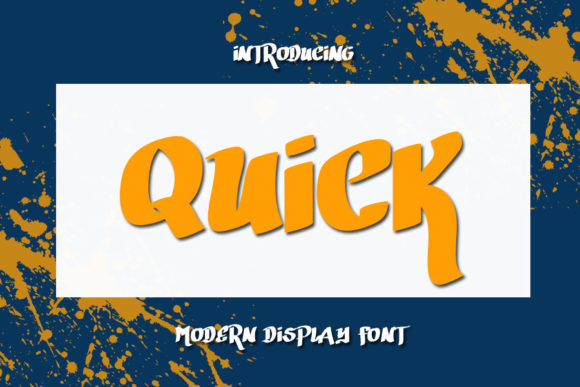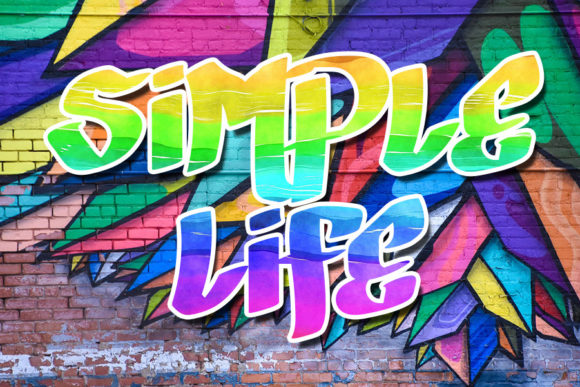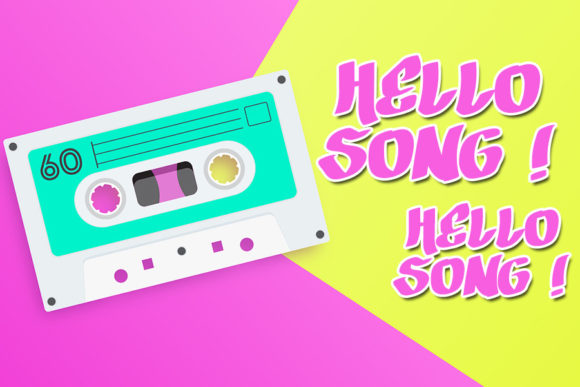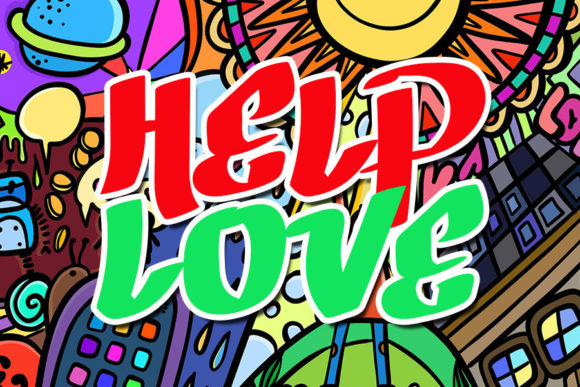
Quick Font
About Quick Font
Quick is a chic and sweet script font. It is defined by smooth curves and is perfect for fashion branding or editorial designs. Add it confidently to your projects, and you will love the results.